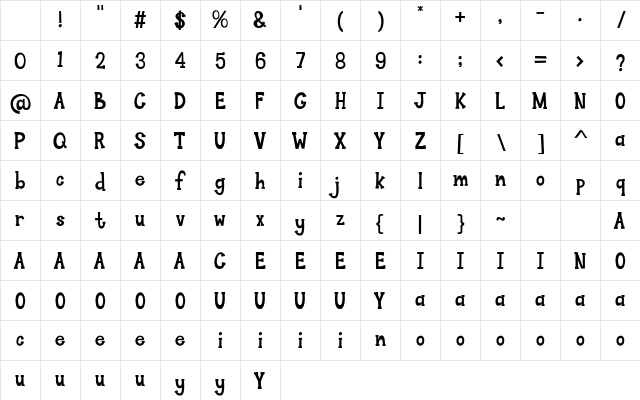
Funny Sports brings high-energy athletic personality to the page - its confident, muscular forms are built for impact.
Pro Tip: Use Funny Sports in all-caps headlines where its athletic energy can fully express itself. Pair with a solid, simple sans for supporting text.